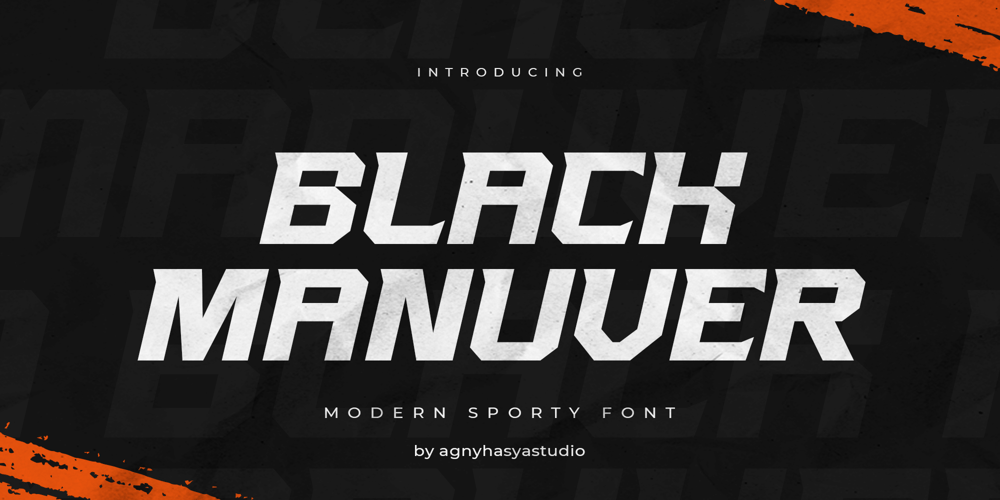
Black Manuver Font Family was designed by Firman Maulana and published by Agny Hasya Studio. Black Manuver contains 2 styles and family package options. Introducing Black Manuver – a dynamic bold display typeface that embraces the spirit of modernity.It captures the energy of sports and the excitement of racing, it spectacularly bridges the gap between action and style.With stately geometric and a street-side charm, Black Manuver is uniquely crafted to encapsulate the thrill of gaming and the boldness of athletic themes.A true game changer in the realm of contemporary typefaces!Black Manuver it’s Perfect for Design Projects Such as Logos, Advertising, Branding, Posters, Banners, Product Designs, Special Events, and More.What’s Included: * Black Manuver Files * Uppercase, Lowercase, Numeral & Punctuation * Alternates and Ligatures * Multilingual Support * PUA Encoded Characters * Works on both PC & MacGet it Now & Start Creating and Designing With Black ManuverThank You!